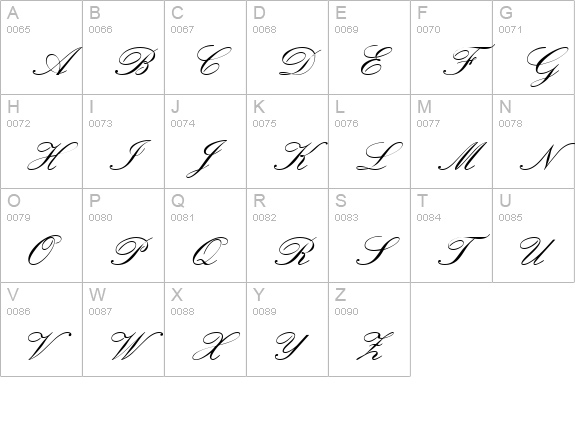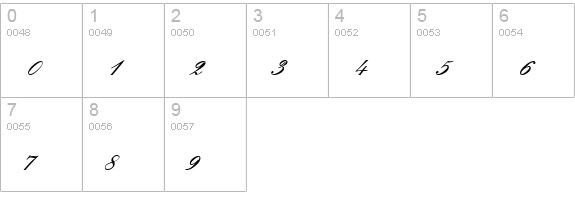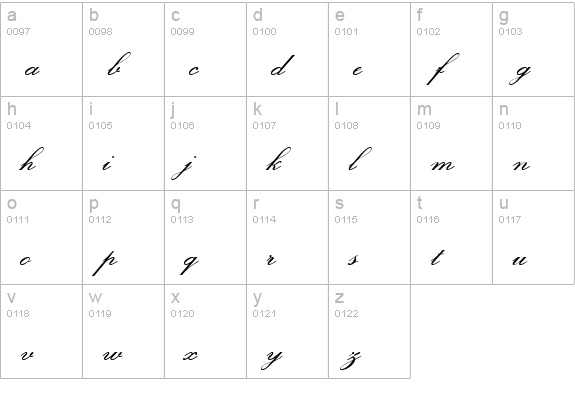
Exmouth Font Details
Exmouth font is a stylish and versatile typeface that exudes elegance and sophistication. With its classic yet modern design, Exmouth is perfect for a wide range of projects, from branding and advertising to invitations and packaging. The sleek lines and graceful curves of this font make it a standout choice for anyone looking to add a touch of sophistication to their designs. The best part? Exmouth font is available for free download at FontsMarket.com, making it easily accessible to designers and creatives looking to elevate their work without breaking the bank. Whether you're working on a professional project or a personal passion project, Exmouth font is sure to impress with its timeless appeal and effortless style. Download your copy today and unleash the full potential of this stunning typeface.